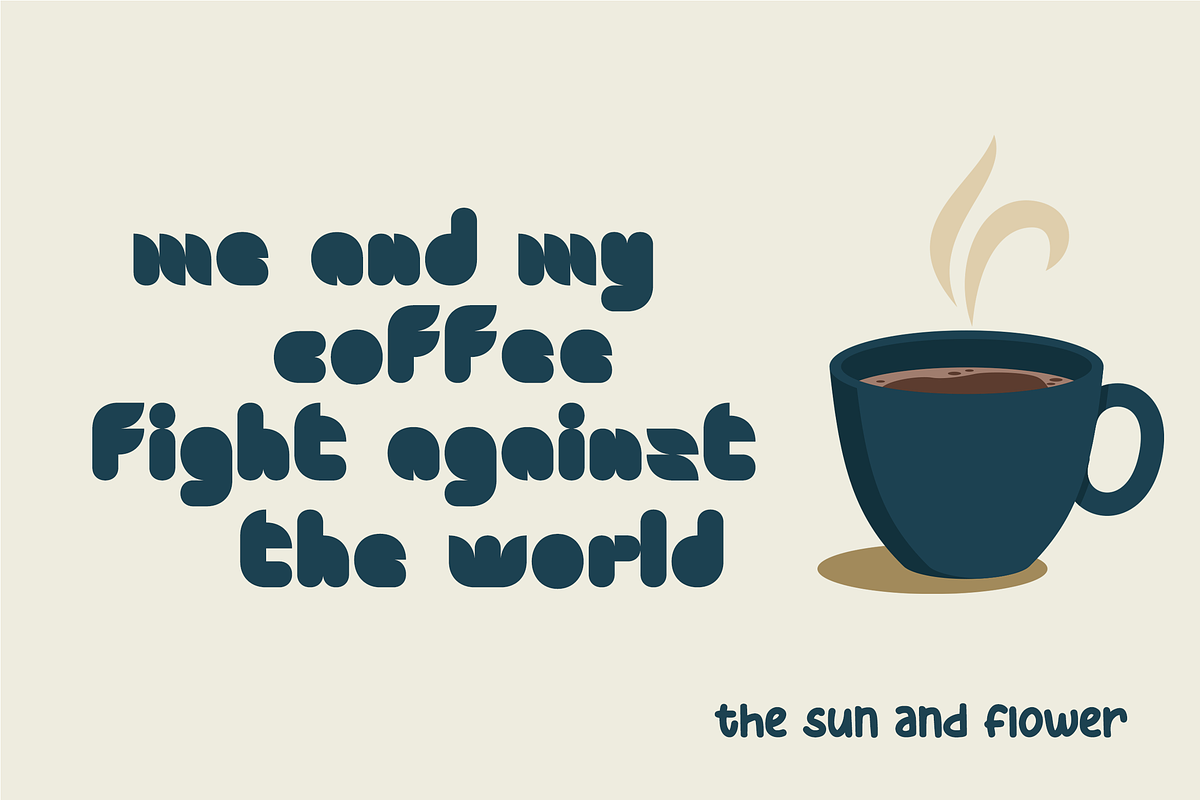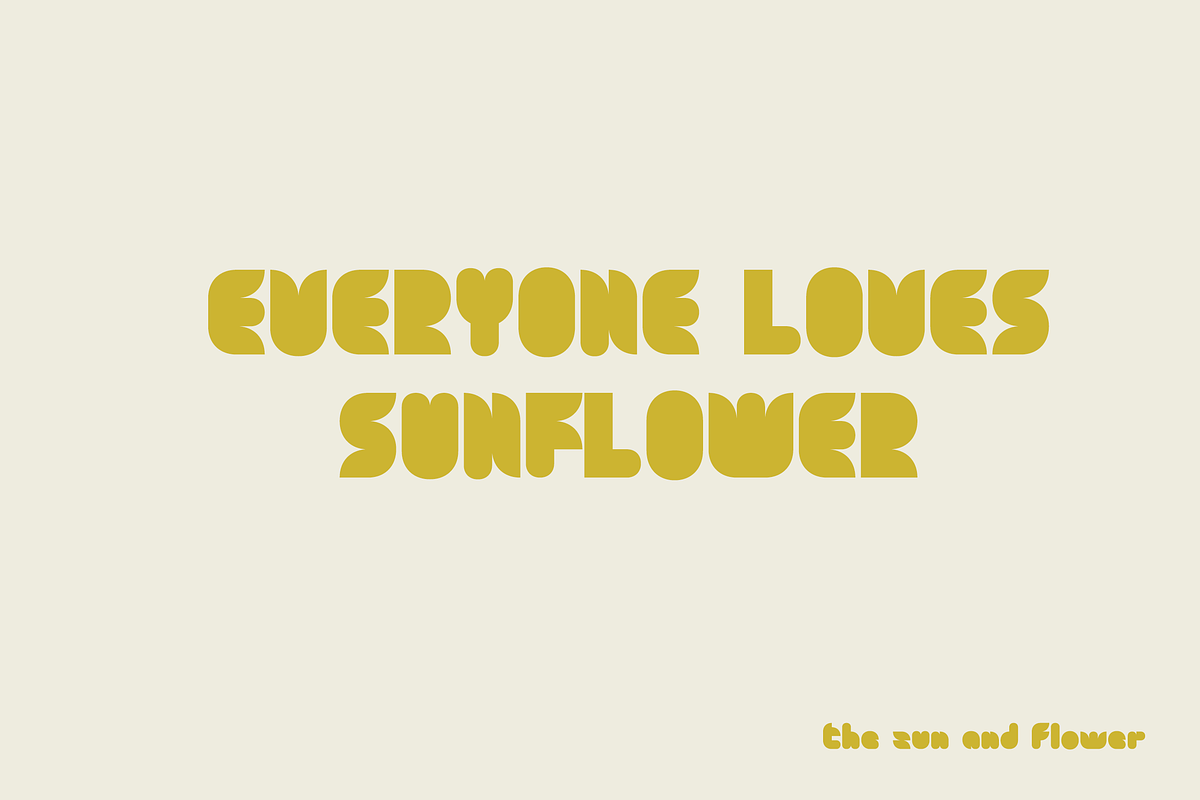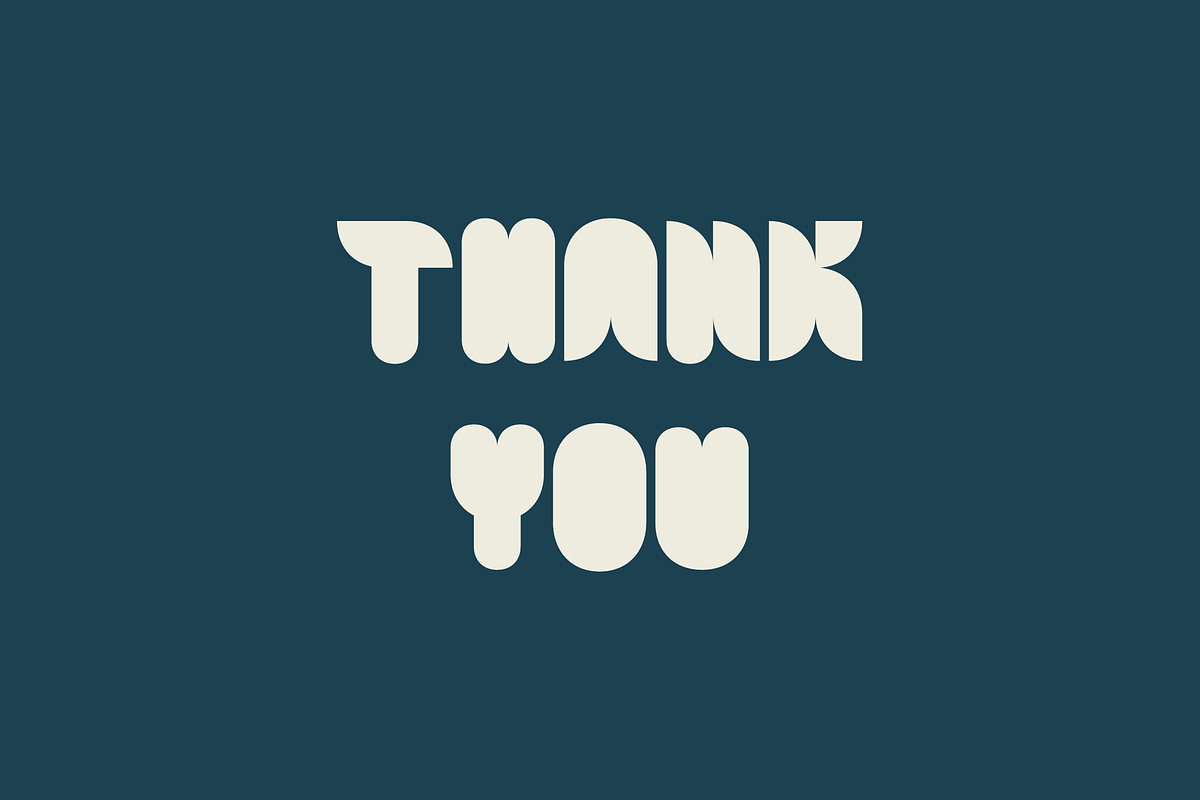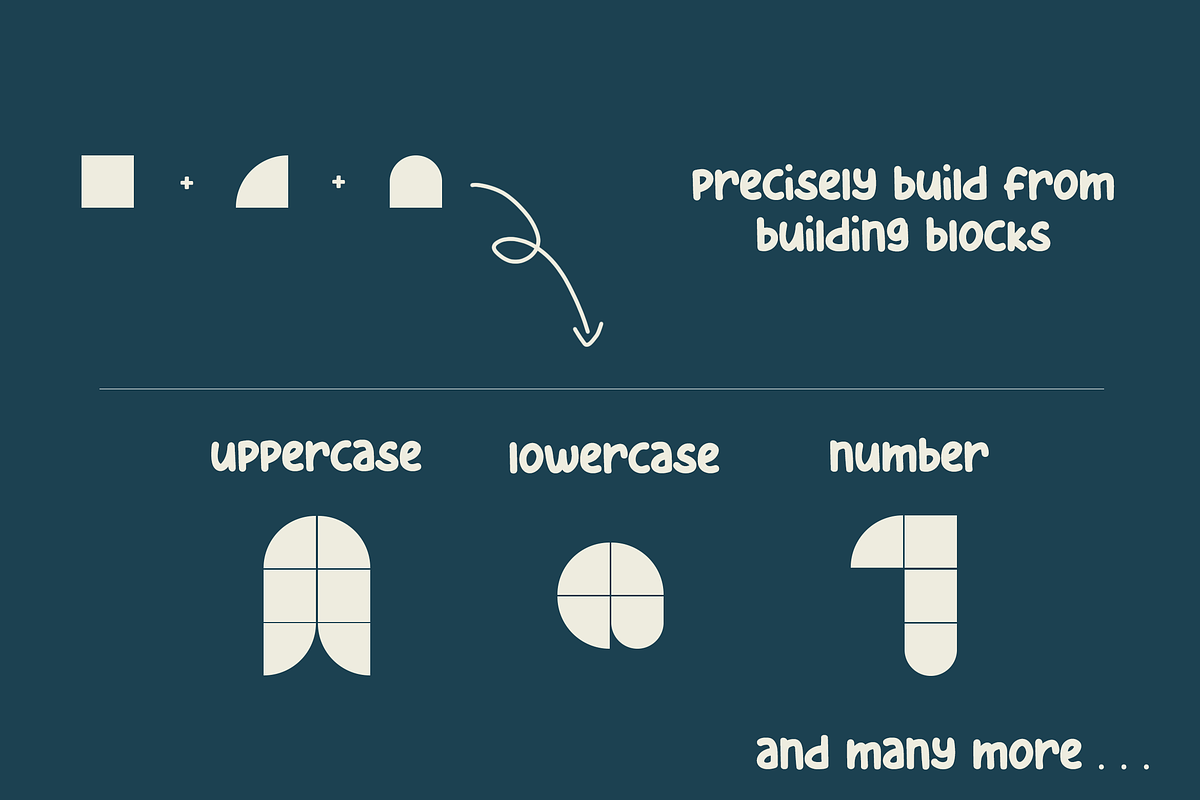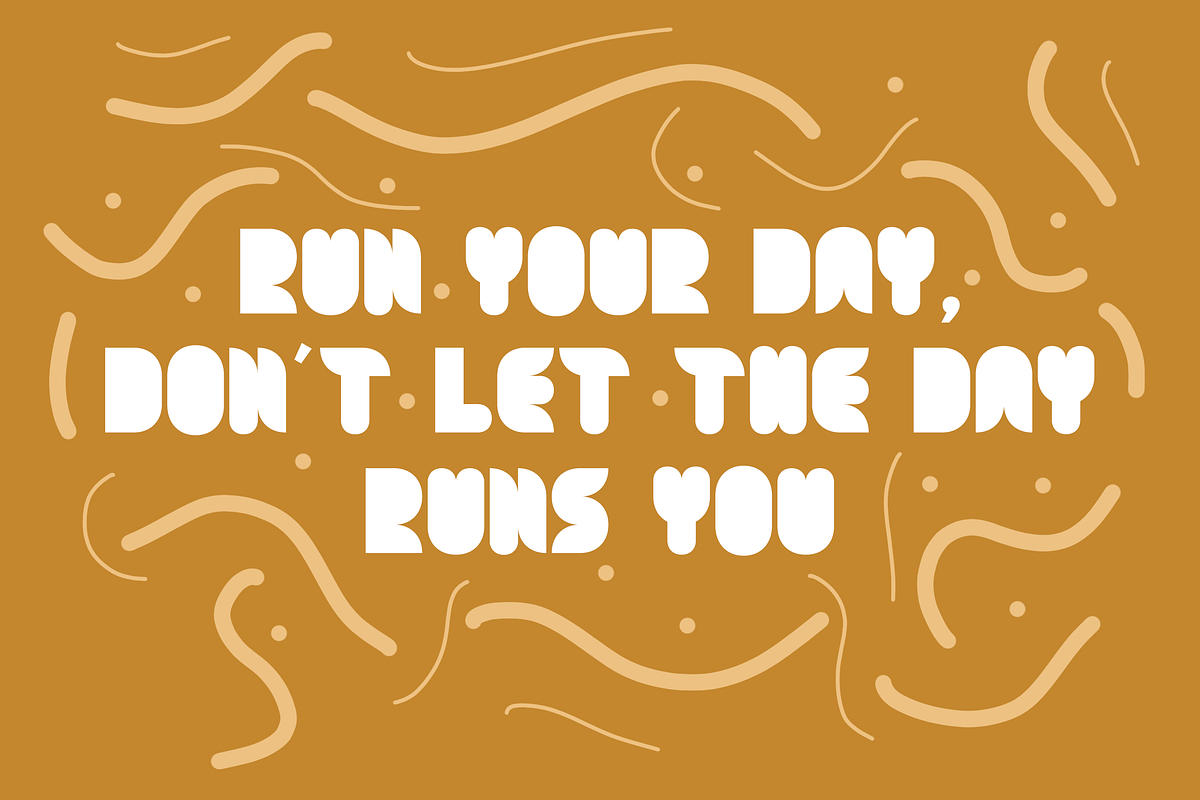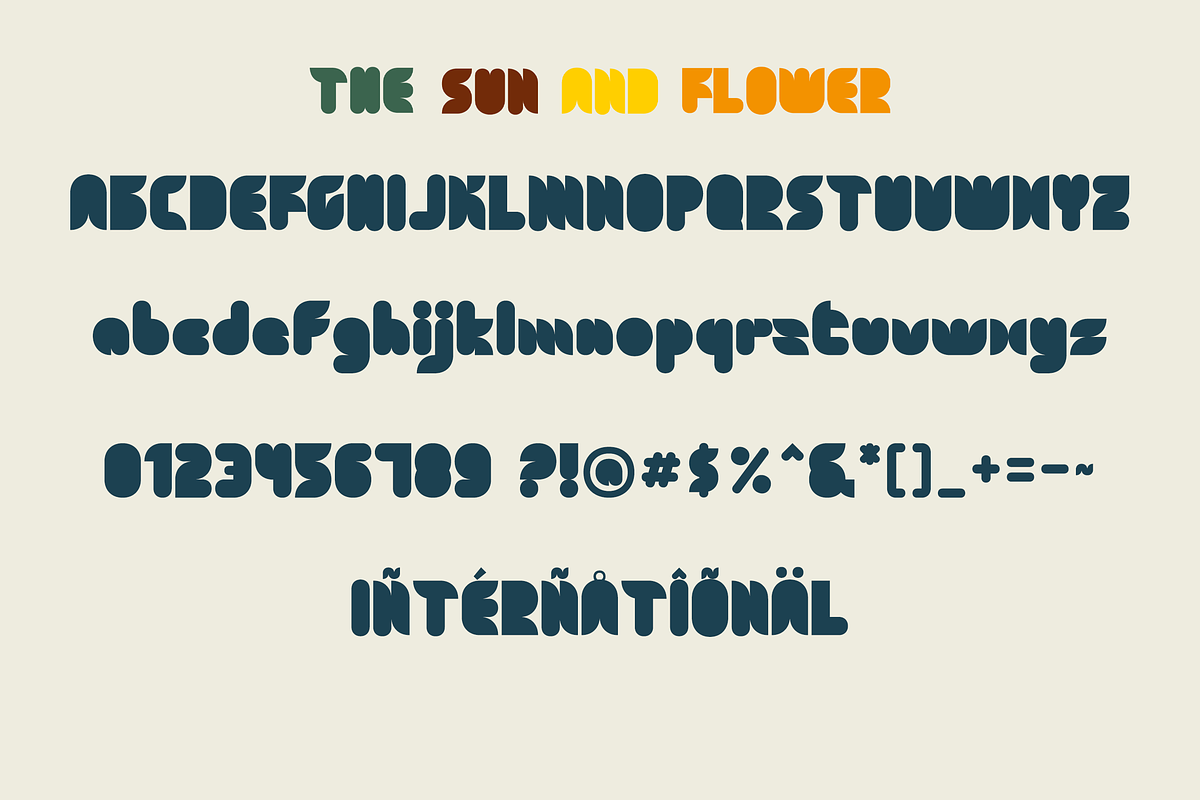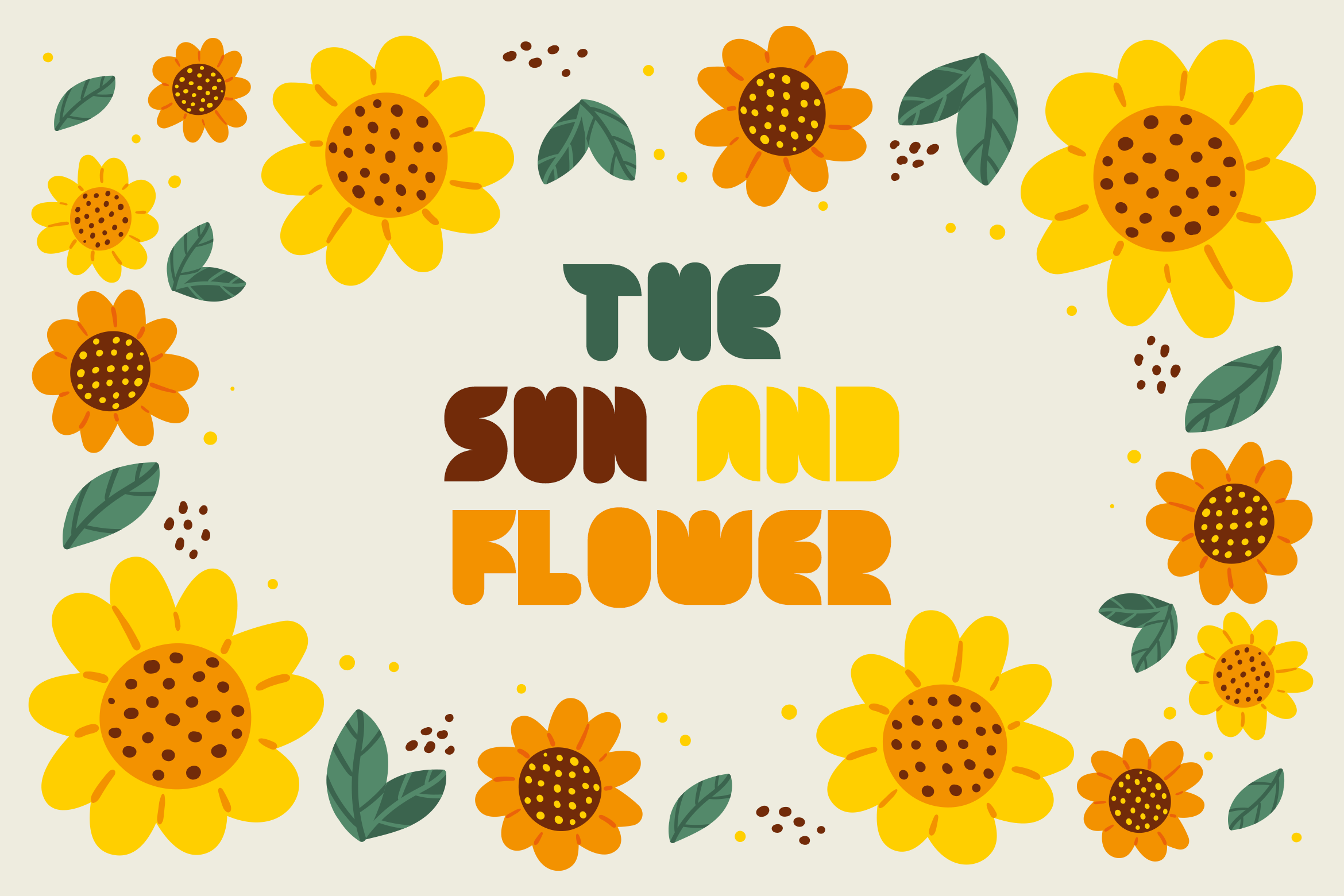
The Sun and Flower | Unique Font
The Sun and Flower is a precise display font yet a good looking crafting font. It is created by precise and combined building blocks that form a unique shape for each characters. The font is suitable for Crafting of course but as well for widely creative ideas. Add this beautiful display font to each of your creative ideas and notice how it makes them stand out! Whether it’s for web, print, moving images or anything else – The Sun and Flower will give a spectacular look to your design.
- The Sun and Flower • A unique crafting font. It contains upper & lowercase characters, all punctuation and numerals.
Language Support; It does support basic International Characters